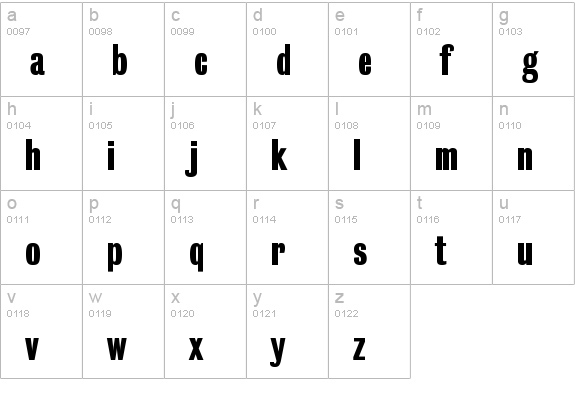
BureauGrotesque-OneSeven is a modern and versatile font that exudes elegance and sophistication. With its clean lines and sharp edges, this typeface is perfect for a wide range of design projects, from branding to editorial design. The font's sleek and minimalist design gives it a timeless quality that is both contemporary and classic. One of the best things about BureauGrotesque-OneSeven is that it is available for free download at FontsMarket.com. This means that you can access this high-quality font without any cost, making it a great choice for designers on a budget. Whether you are working on a personal project or a client's campaign, BureauGrotesque-OneSeven is sure to elevate your designs and give them a polished and professional look.